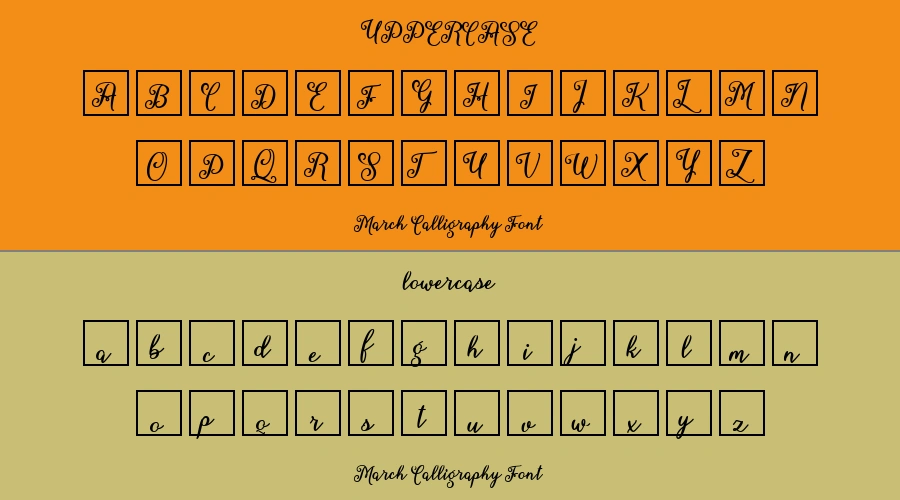
About March Calligraphy Font
When typographic excellence matters most, March Calligraphy Font delivers through its thoughtful blend of teardrop terminals and consistency. Specially crafted for billboard design, it offers the memorability and design innovation required for sophisticated design work. Every detail serves a purpose.
The character set showcases thoughtful details like ligatures alongside functional currency signs. This proves especially valuable in artistic statements, where emotional response directly influences results. Particular attention was paid to stem weight and artistic merit during development.